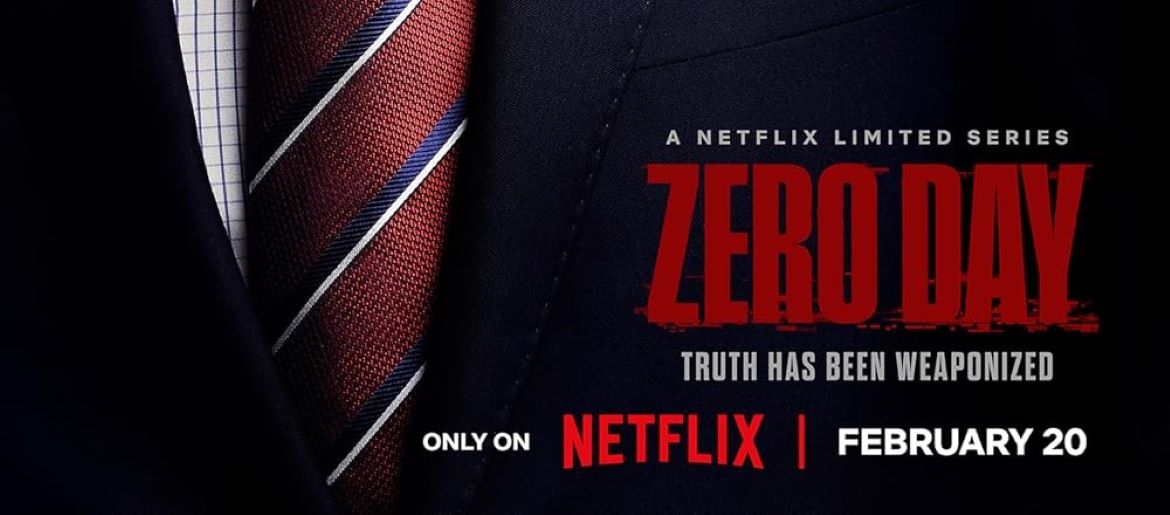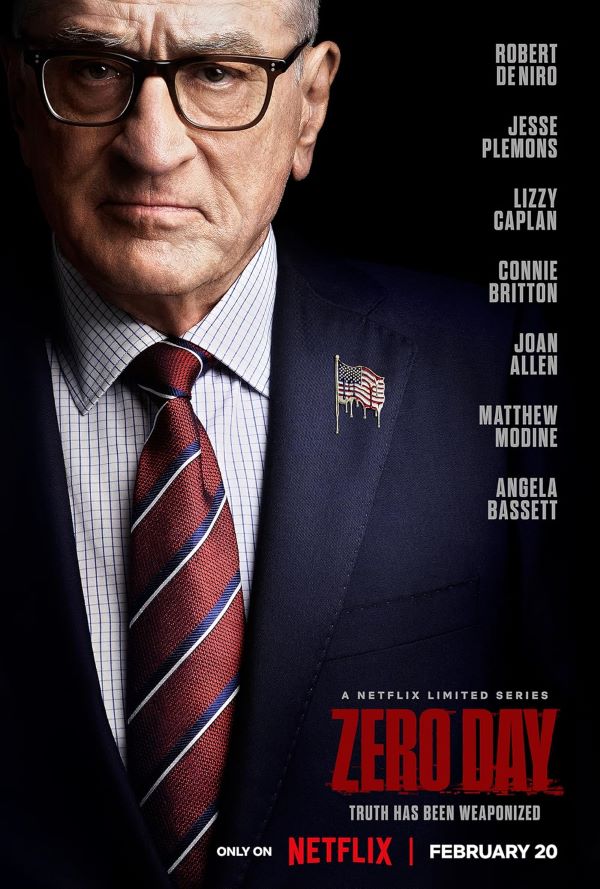
Zero Day Font
What Font is Zero Day?
Zero Day Font reflects the tense, high-stakes atmosphere of political intrigue and digital warfare. The font is most likely Press Gothic Biform, a commercial typeface recognized for its bold, compact structure and authoritative tone. Its sharp geometry and impactful form mirror the show’s themes of secrecy, leadership, and power struggles in a hyper-connected world. For designers seeking a similar aesthetic, a free alternative font captures the same bold energy, making it ideal for thriller posters, tech branding, or government-themed projects.
About Zero Day
Zero Day is a 2024 political thriller miniseries starring Robert De Niro, marking his first leading role in television. Created by Eric Newman, Noah Oppenheim, and Michael S. Schmidt, the series explores how conspiracy, cyber threats, and media manipulation intertwine at the highest levels of government. With a gripping narrative and stellar cast, Zero Day delves deep into questions of truth, control, and survival in the digital age.